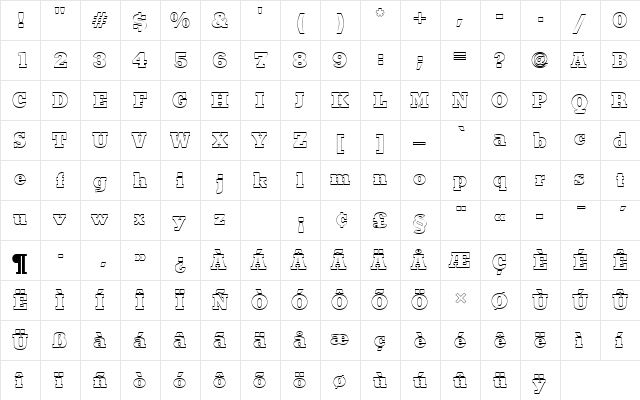
StymieTBlaOu1 Regular
StymieTBlaOu1 is a composed and adaptable typeface that performs quietly and consistently across a wide range of design contexts.